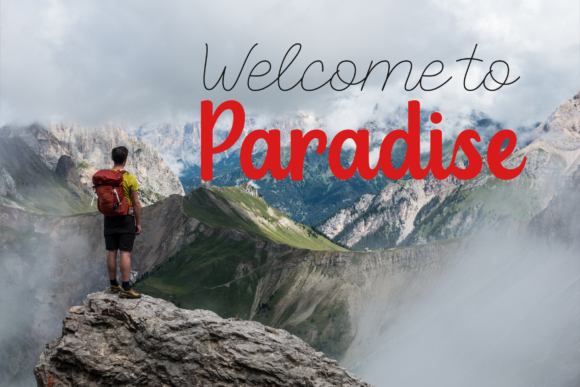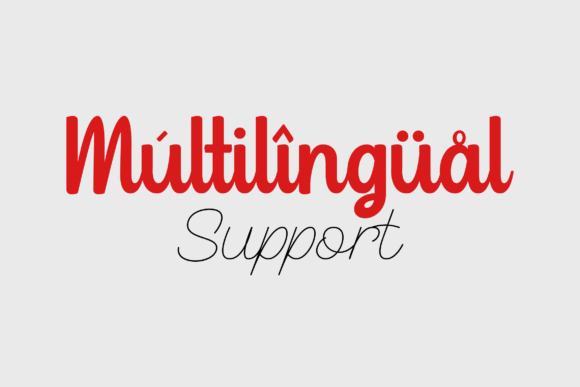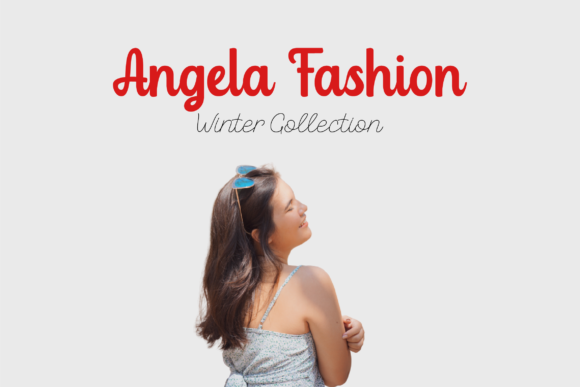
Introduction to Kawula Moeda Font
Kawula Moeda is a graceful and charming script font.
It has beautiful and well balanced characters and as a result, it matches a wide pool of designs .
Key Features of Kawula Moeda Font
Why Choose Kawula Moeda Font?
Kawula Moeda Font offers exceptional quality and versatility, making it a valuable addition to your design toolkit. Whether you’re creating for personal projects or commercial use, Kawula Moeda Font delivers professional results.